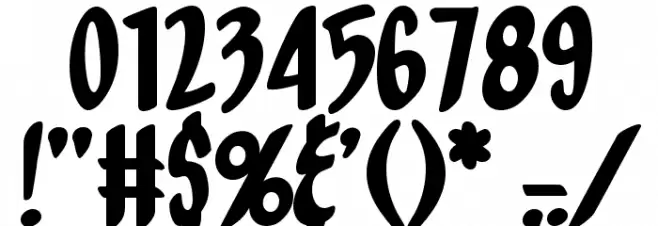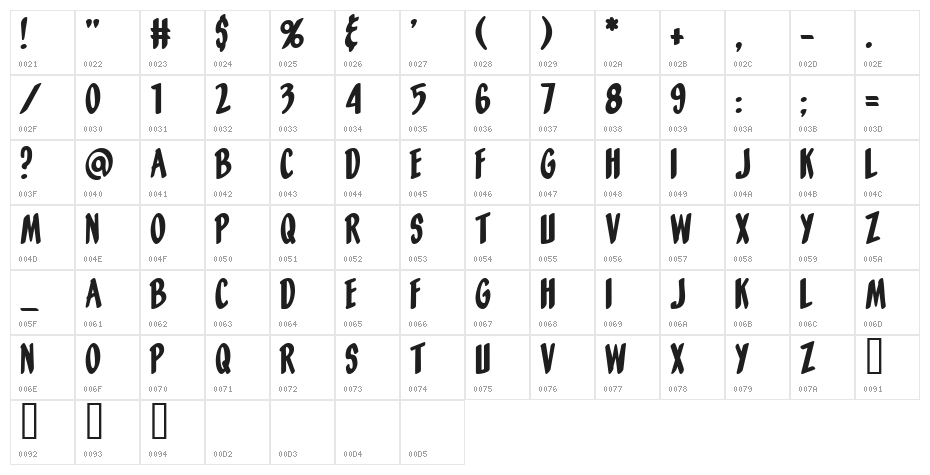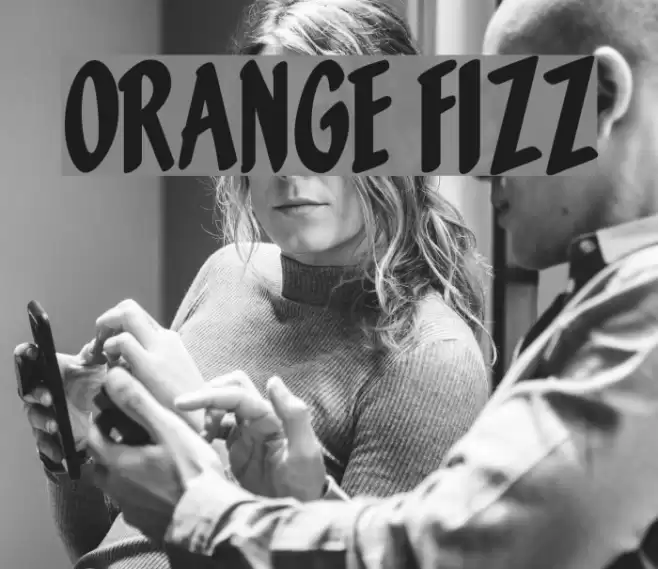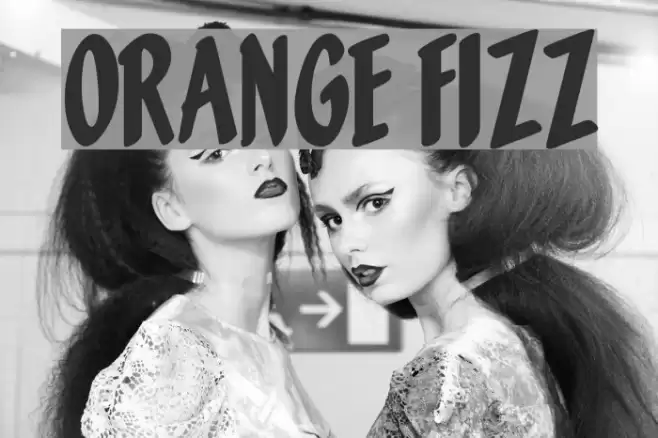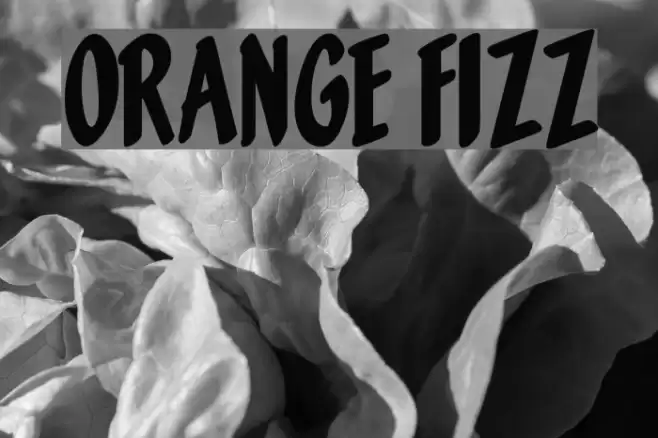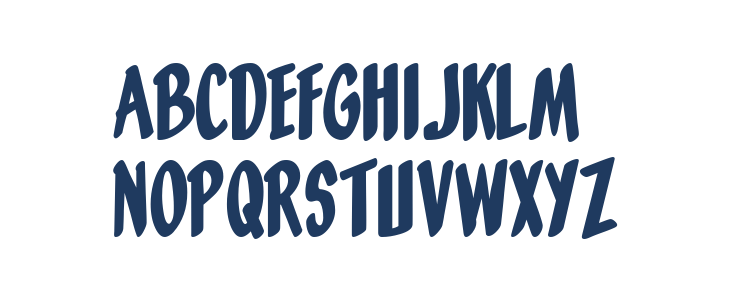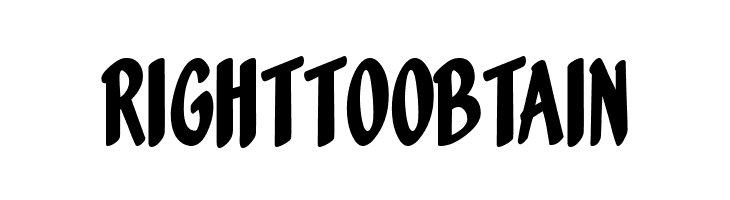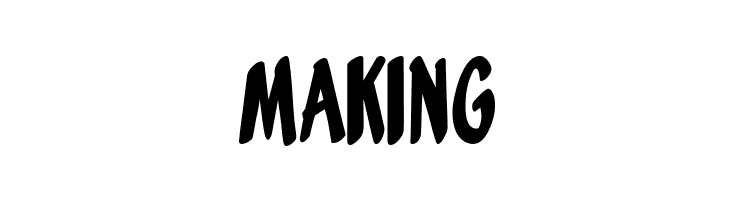
Orange Fizz Font
Orange Fizz Description
This font features a bold and playful style with a hand-drawn appearance. The letters are thick and rounded, giving them a friendly and approachable feel. The strokes are consistent in width, contributing to a cohesive look across all characters. The uppercase and lowercase letters maintain a uniform height, enhancing readability. The numbers and special characters are designed to match the playful aesthetic, making them suitable for creative and informal applications. Overall, the font exudes a sense of fun and energy, making it ideal for projects that aim to capture attention and convey a lively message.
| Overall Style | Playful, Energetic |
| Proposed Projects | Ideal for children's books, playful branding, event posters, and social media graphics. |